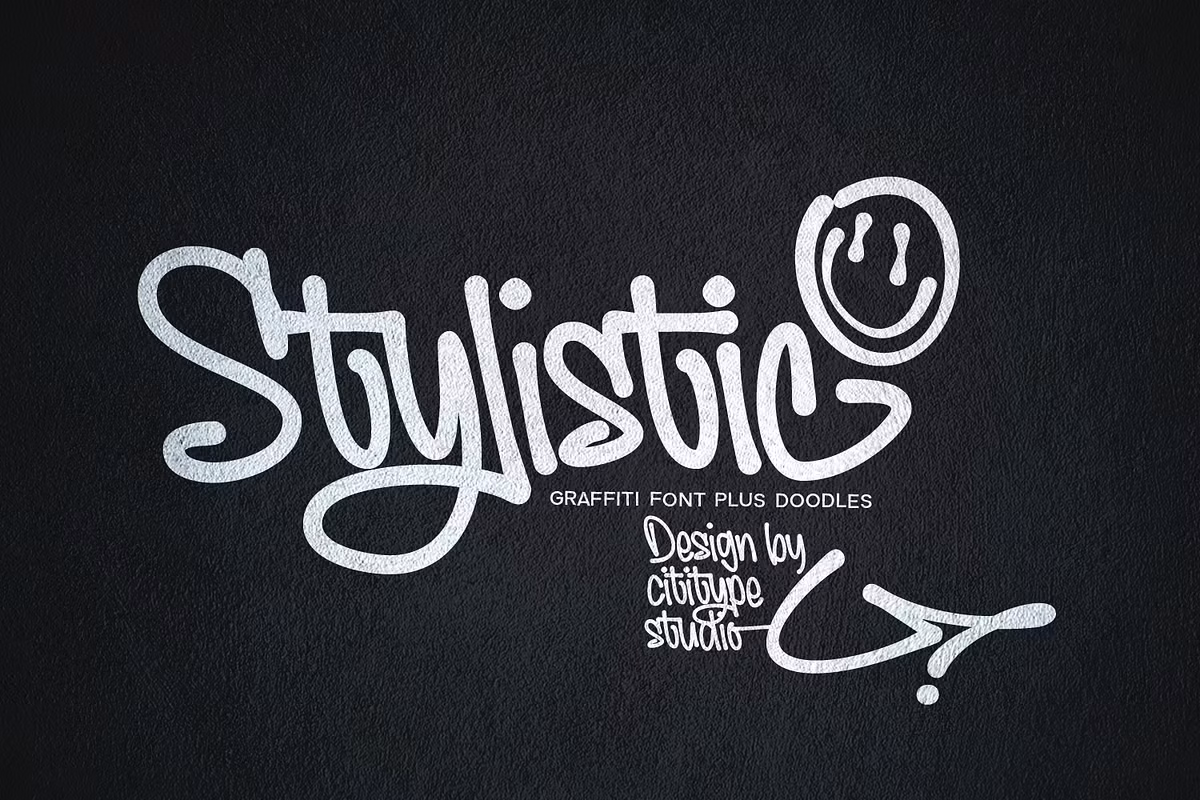
Stylistic, Graffiti Font with Doodle is perfect for street art projects, urban brand identities, hip-hop music promotions, skateboard graphics, underground event posters, youth culture campaigns, alternative fashion designs, graffiti-inspired logos, urban lifestyle products, street wear apparel, creative workshop materials, and rebellious artistic expressions.
Stylistic, Graffiti Font with Doodle is exciting because it captures the raw creative energy and spontaneous artistic spirit of authentic street art through dynamic letterforms enhanced with playful doodle elements that bring walls and notebooks to life. This vibrant typeface features bold graffiti-style characters with integrated decorative doodles that reflect the genuine creativity and artistic freedom found in urban art culture. The font's street-authentic aesthetic creates instant connections with audiences who appreciate raw creativity and underground artistic expression.
This dynamic typography solution transforms ordinary text into vibrant street art experiences through its authentic graffiti aesthetic and integrated doodle design language. Stylistic, Graffiti Font with Doodle Free Download enables designers and street artists to access premium urban typography that instantly adds authenticity, creative energy, and street art appeal to any creative project. The font's carefully crafted graffiti elements ensure genuine street credibility while maintaining readability and artistic impact.
Urban brands, music labels, and street culture businesses trust Stylistic, Graffiti Font with Doodle for its ability to communicate authenticity, creativity, and underground culture values to audiences seeking genuine street art aesthetics and urban artistic expression. The typeface's bold construction performs exceptionally well across various applications, from intimate sketchbook designs to large-scale mural projects. Its extensive character support includes multilingual capabilities and street art elements that enhance authentic urban brand presentations.
The creative inspiration behind Stylistic, Graffiti Font with Doodle draws from real street art movements, underground graffiti culture, and the spontaneous doodle art that fills margins and walls throughout urban environments. This street-focused approach creates a font that feels genuinely urban while maintaining contemporary relevance across different street art styles and underground brand expressions.
Whether creating street art campaigns, urban fashion brands, or underground music promotions, this graffiti doodle font delivers exceptional results that resonate with audiences seeking authentic creative expression. Download Stylistic, Graffiti Font with Doodle today and discover how premium street art typography can transform your design projects into powerful expressions of urban creativity, artistic rebellion, and the unstoppable energy of street culture.